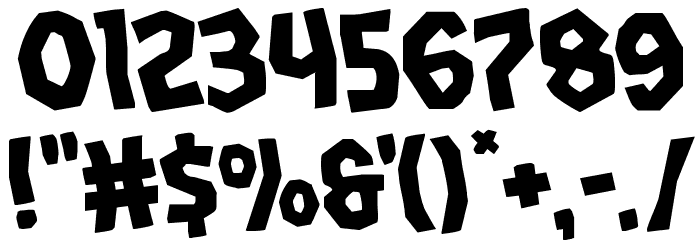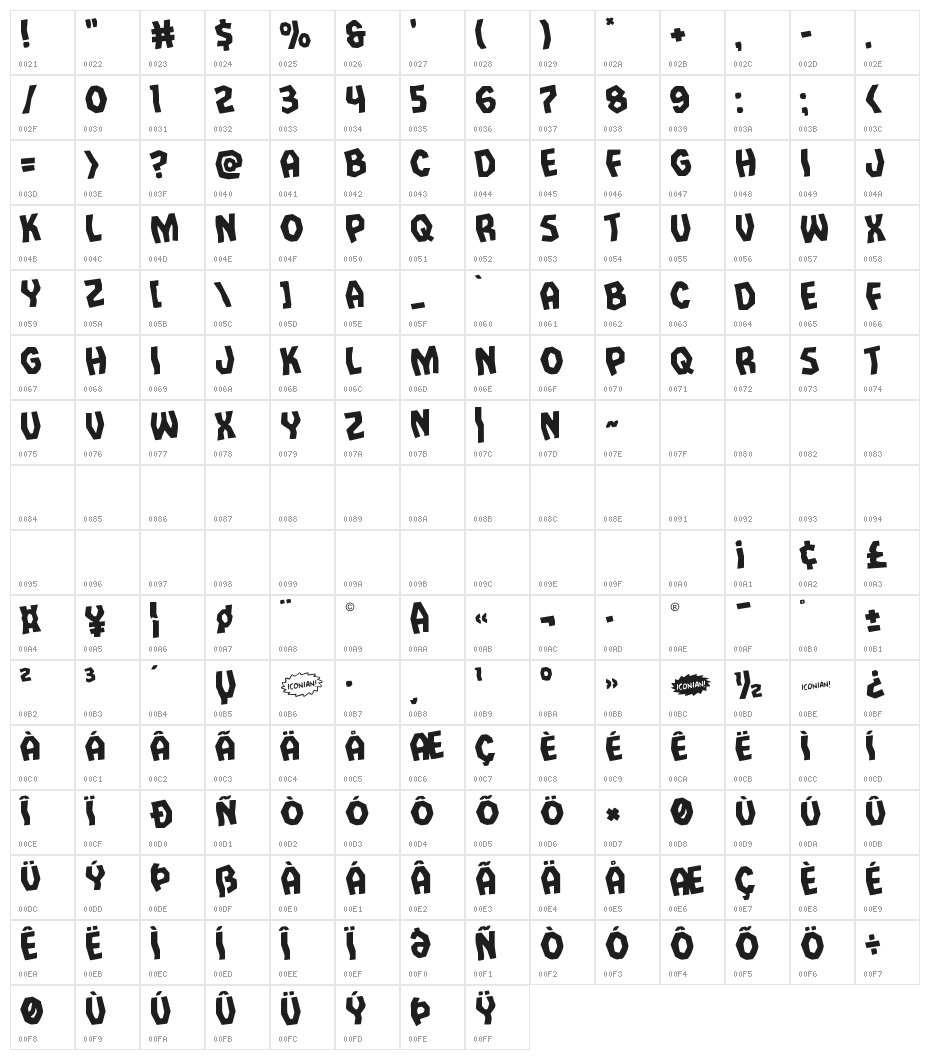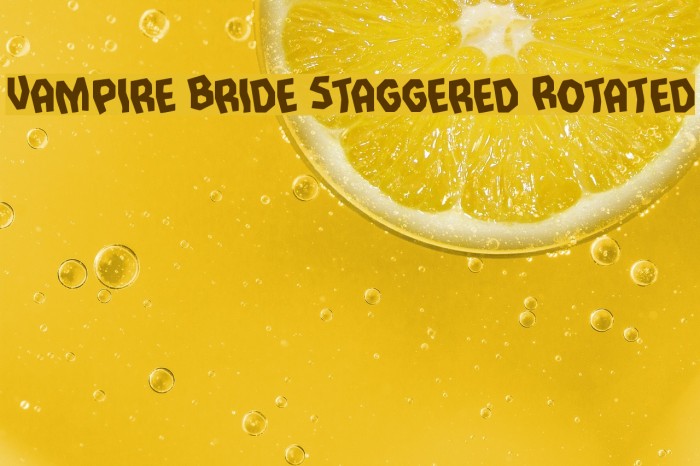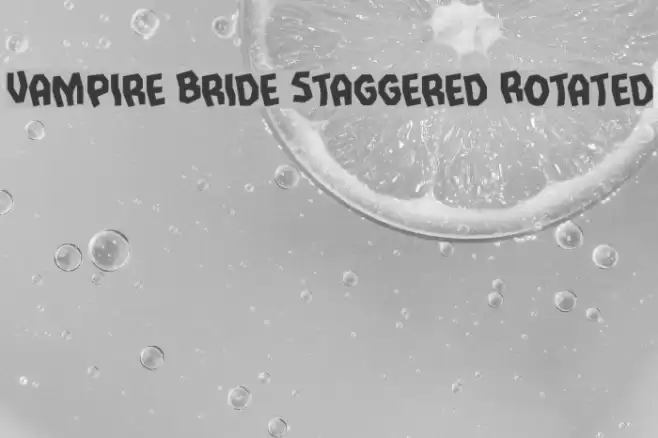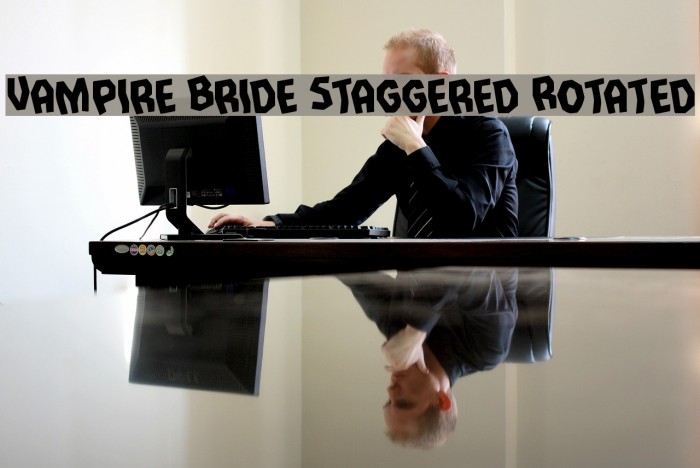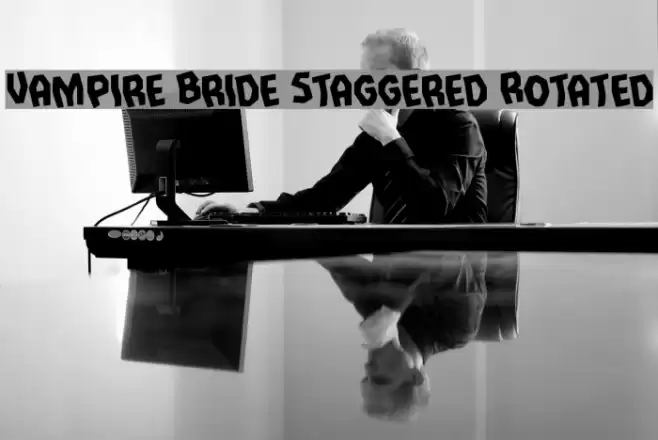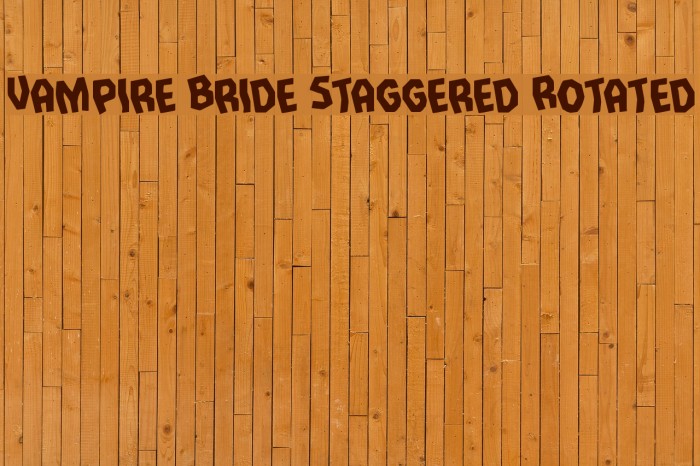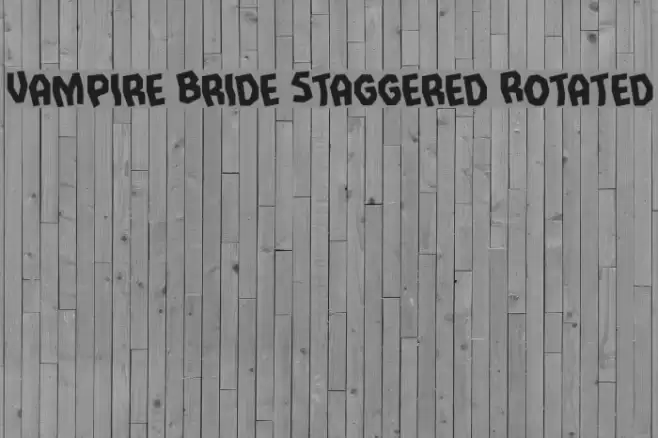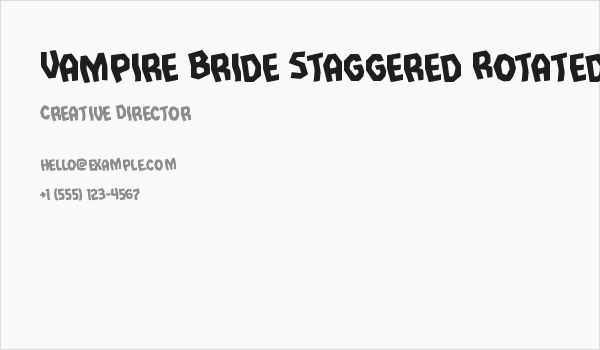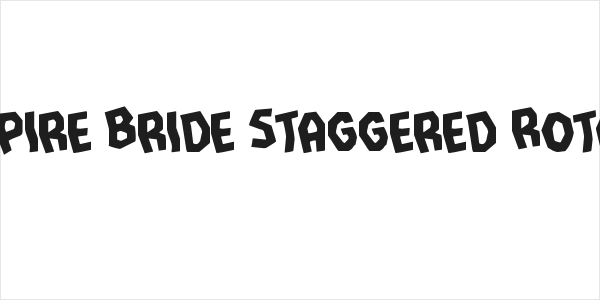
Vampire Bride Staggered Rotated Font
Vampire Bride Staggered Rotated Description
This font features a bold and jagged design, reminiscent of horror and gothic themes. The letters are unevenly staggered and rotated, creating a chaotic and unsettling appearance. The thick strokes and sharp angles give it a menacing and dramatic look, perfect for capturing attention. The font includes both uppercase and lowercase letters, numbers, and a variety of special characters, all maintaining the same edgy style. Its unique and bold characteristics make it stand out, ideal for projects that require a touch of the macabre or a strong visual impact.
| Overall Style | Gothic, Horror |
| Use Case | Headlines, Posters, Themed Events |
| Proposed Projects | Ideal for Halloween-themed designs, horror movie posters, spooky invitations, and any project needing a dramatic, gothic touch. |